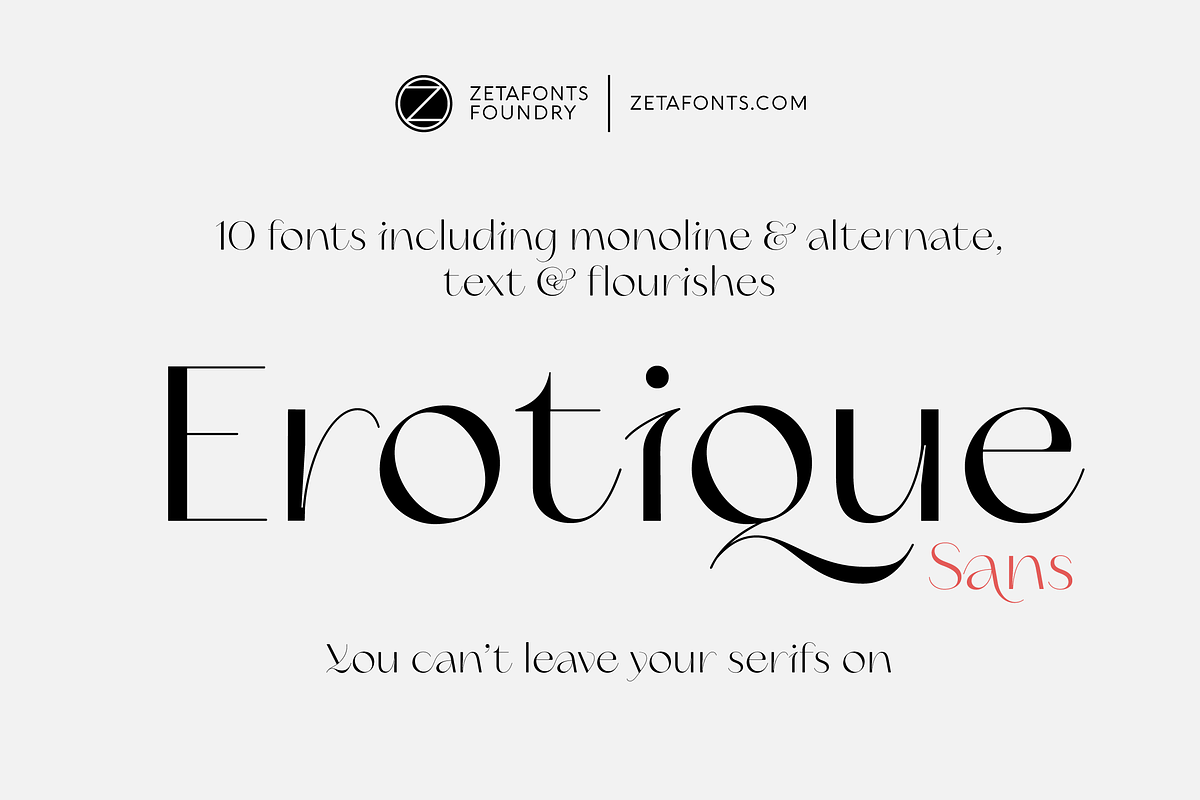
Erotique Sans 10 Fonts Free Download is a versatile and sophisticated font collection that offers ten unique styles, each carefully crafted to bring elegance and modernity to your designs. With a range of weights and character variations, this font family is perfect for high-end branding, editorial layouts, logos, headlines, and digital content.
Whether you’re designing for a luxury brand, creating sleek advertisements, or building a polished website, Erotique Sans adds modern sophistication and readability to your typography. It’s the ideal font family for designers seeking flexibility with style.